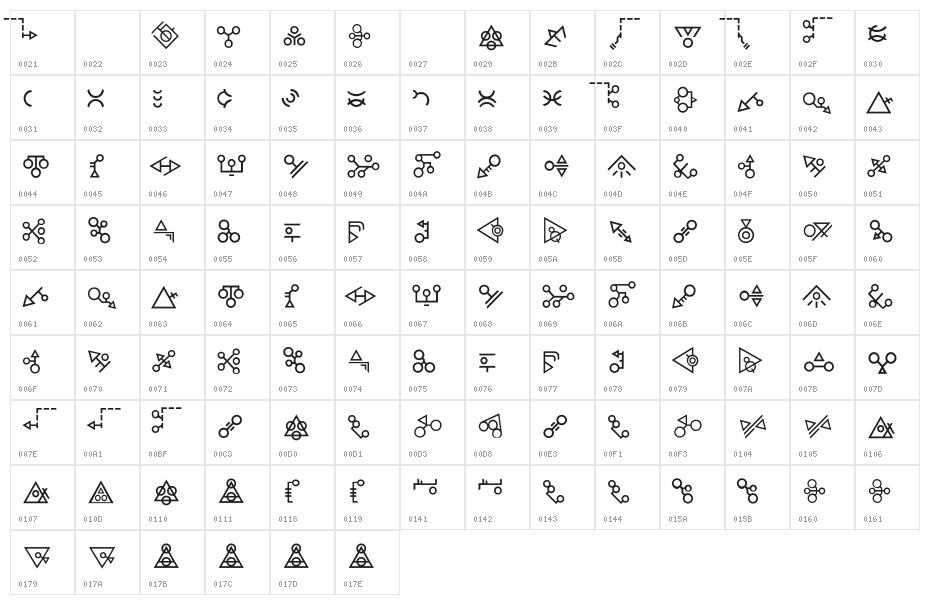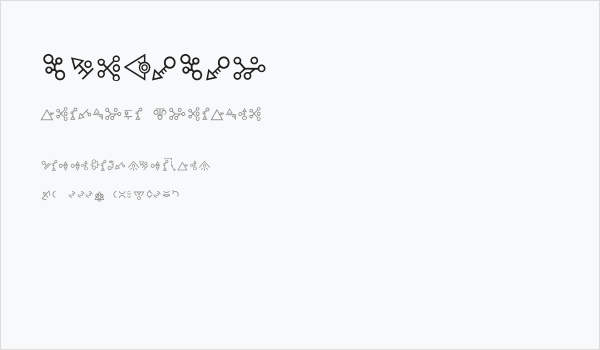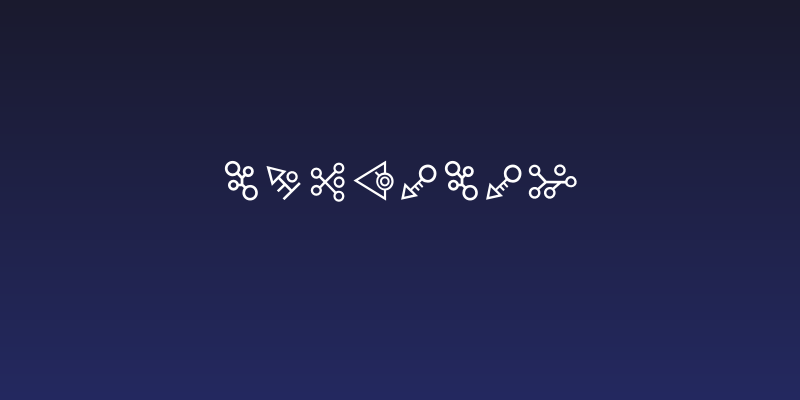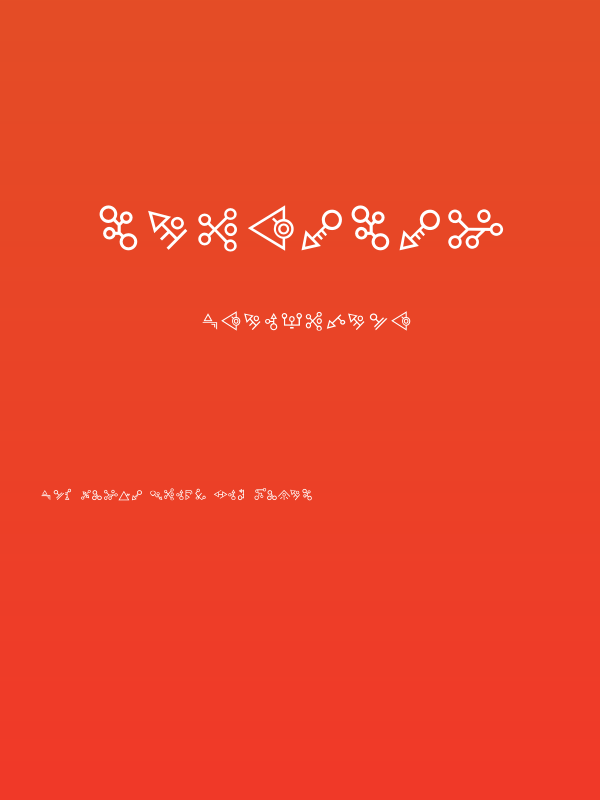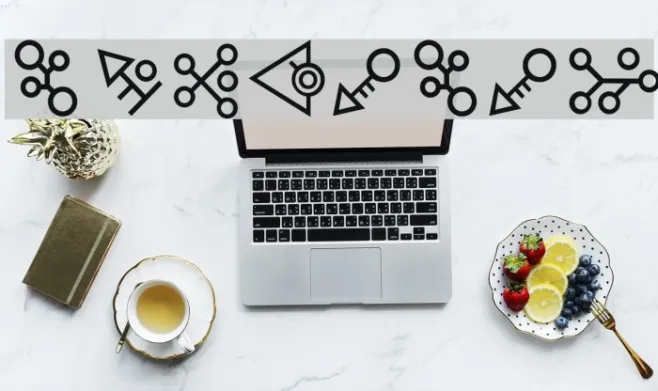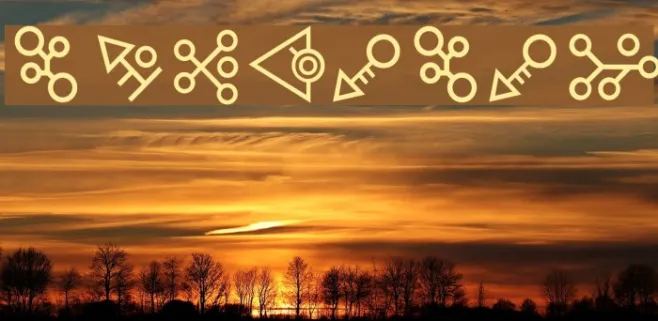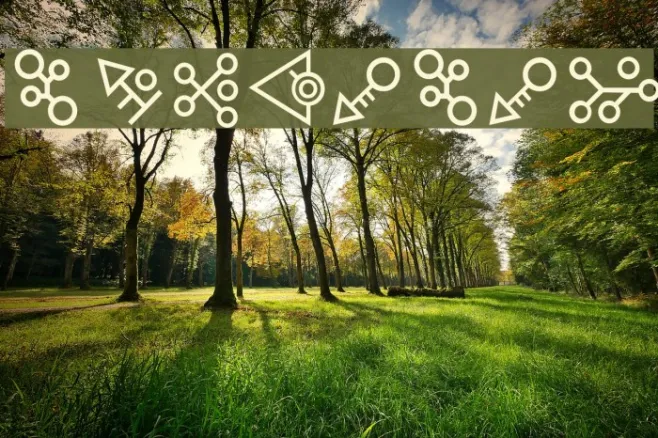
Sprykski Font
Sprykski Description
A decorative and abstract symbol-based typeface featuring geometric shapes, lines, and dots, with each character represented by a unique glyph that does not correspond to standard Latin letters or numerals.
| Overall Style | Decorative, Futuristic, Abstract |
| Use Case | Logos, Posters, Game UI, Art projects |
| Proposed Projects | Futuristic branding, game UI, puzzles, sci-fi artwork, secret codes, or decorative posters. |